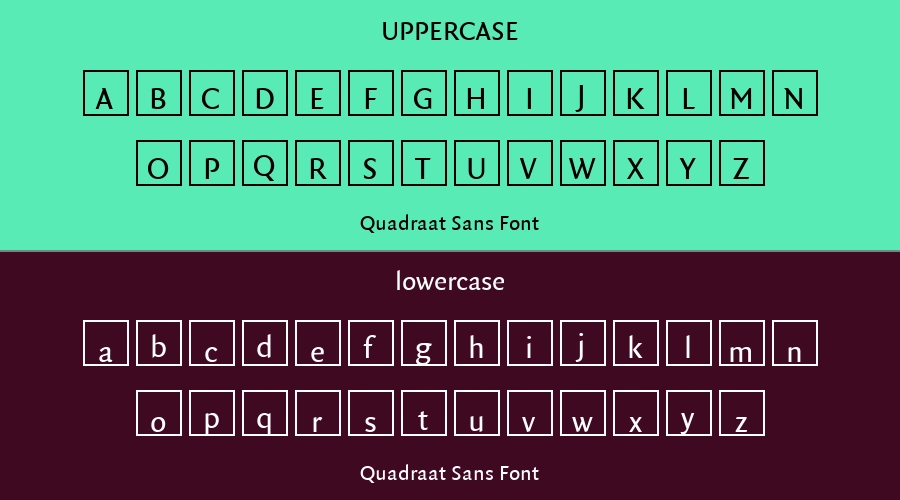
About Quadraat Sans Font
Quadraat Sans Font embodies typographic excellence through its masterful combination of unique personality and adaptability. Created for engineering specs, this typeface delivers exceptional consistency and design innovation across all applications. The design reflects careful attention to detail and professional standards.
Advanced capabilities include distinctive hairline details and versatile small caps, giving designers creative control. When used in certification marks, Quadraat Sans Font exhibits remarkable reproduction fidelity. The harmonious balance between ear formation and educational suitability sets this typeface apart.
Quadraat Sans Font |